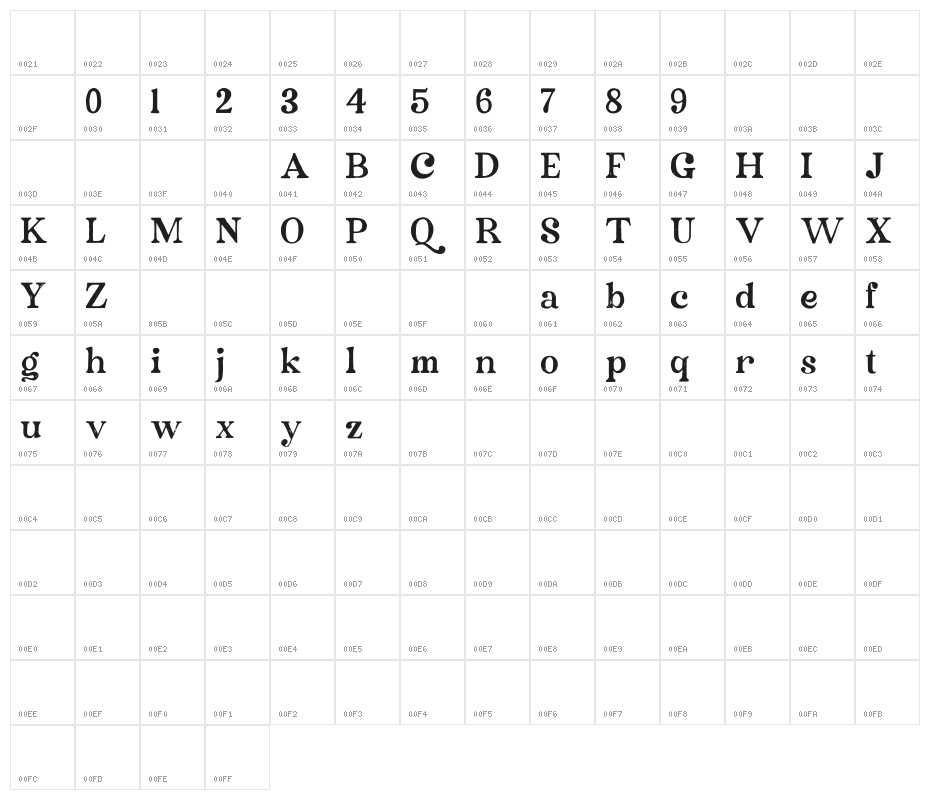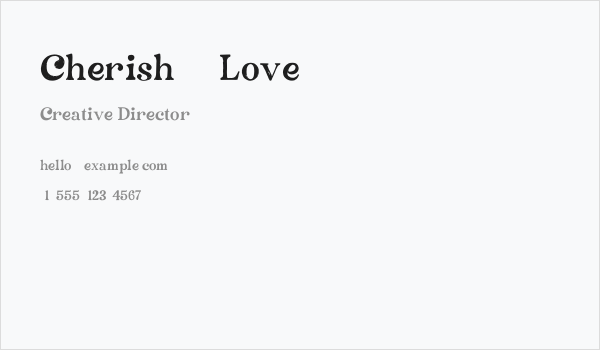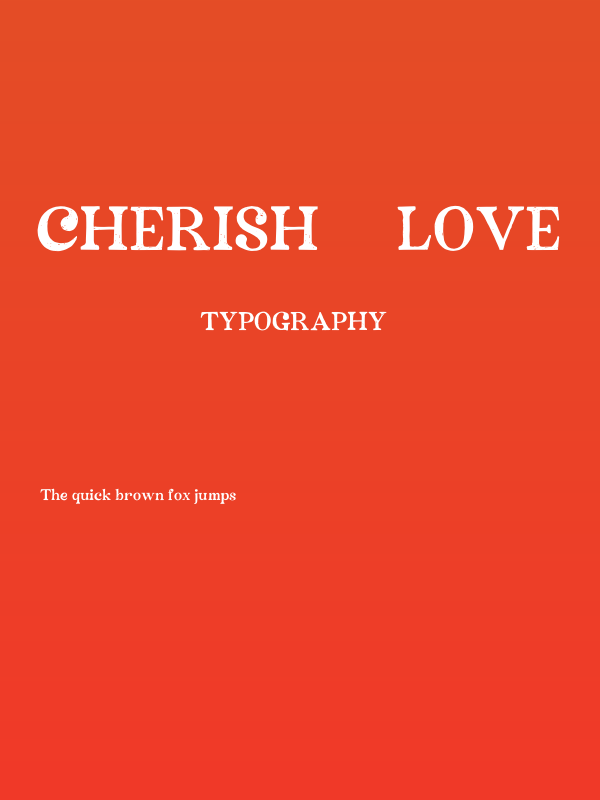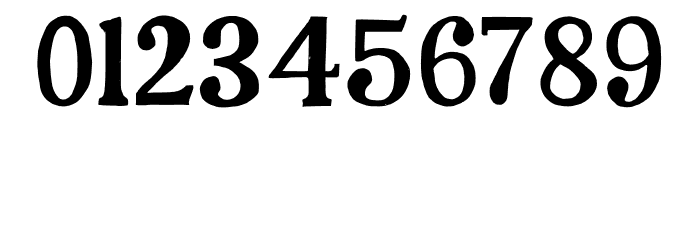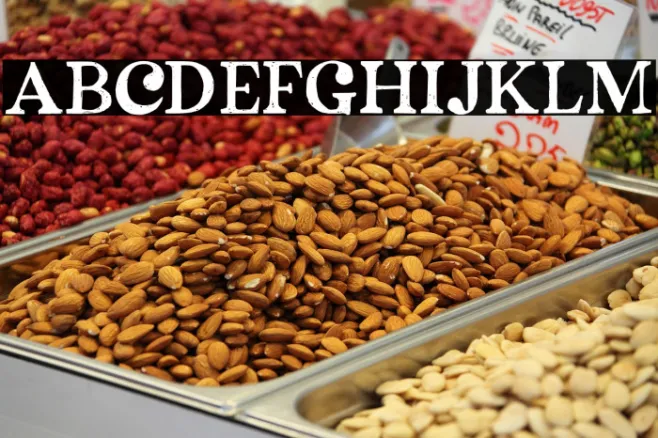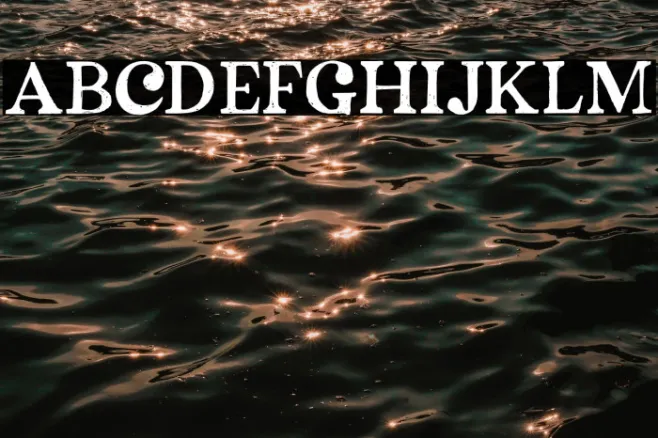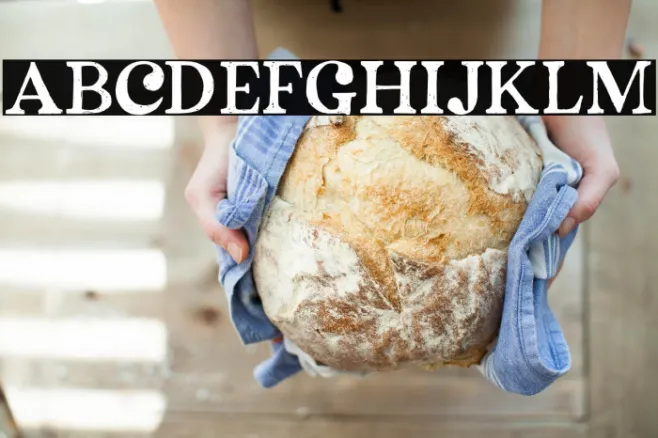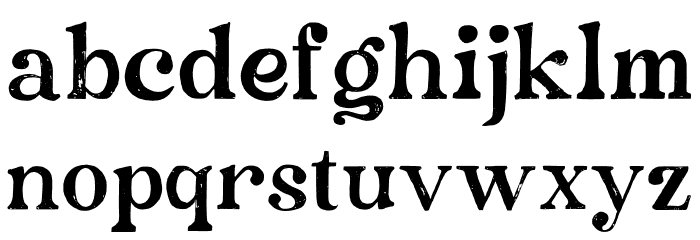
Cherish & Love Font
Cherish & Love Description
This font exudes a vintage charm with its bold, serif style that features a slightly distressed appearance, adding character and a sense of history to the text. The uppercase letters are robust and commanding, while the lowercase letters maintain a consistent style with unique flourishes, particularly noticeable in characters like 'g' and 'y'. The numerals are equally bold, ensuring they stand out in any design. The overall design is reminiscent of classic print styles, making it ideal for projects that require a touch of nostalgia or a handcrafted feel.
| Overall Style | Vintage |
| Proposed Projects | Ideal for vintage-themed posters, book covers, branding for artisanal products, and any project seeking a classic, handcrafted aesthetic. |